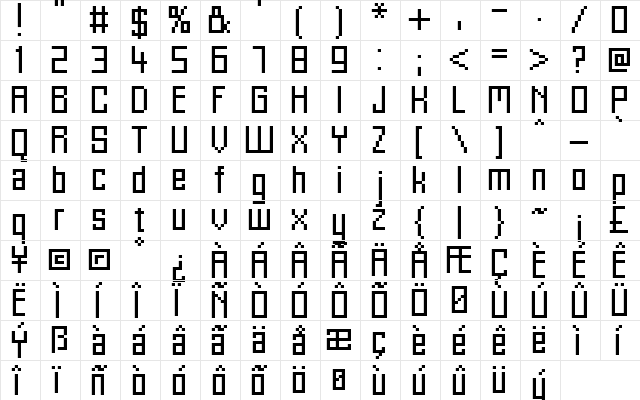
FFF Alaska Regular
Design Context for FFF Alaska Typeface
FFF Alaska takes a measured approach to typography — its balanced proportions and neutral character make it a reliable workhorse for both digital and print work.